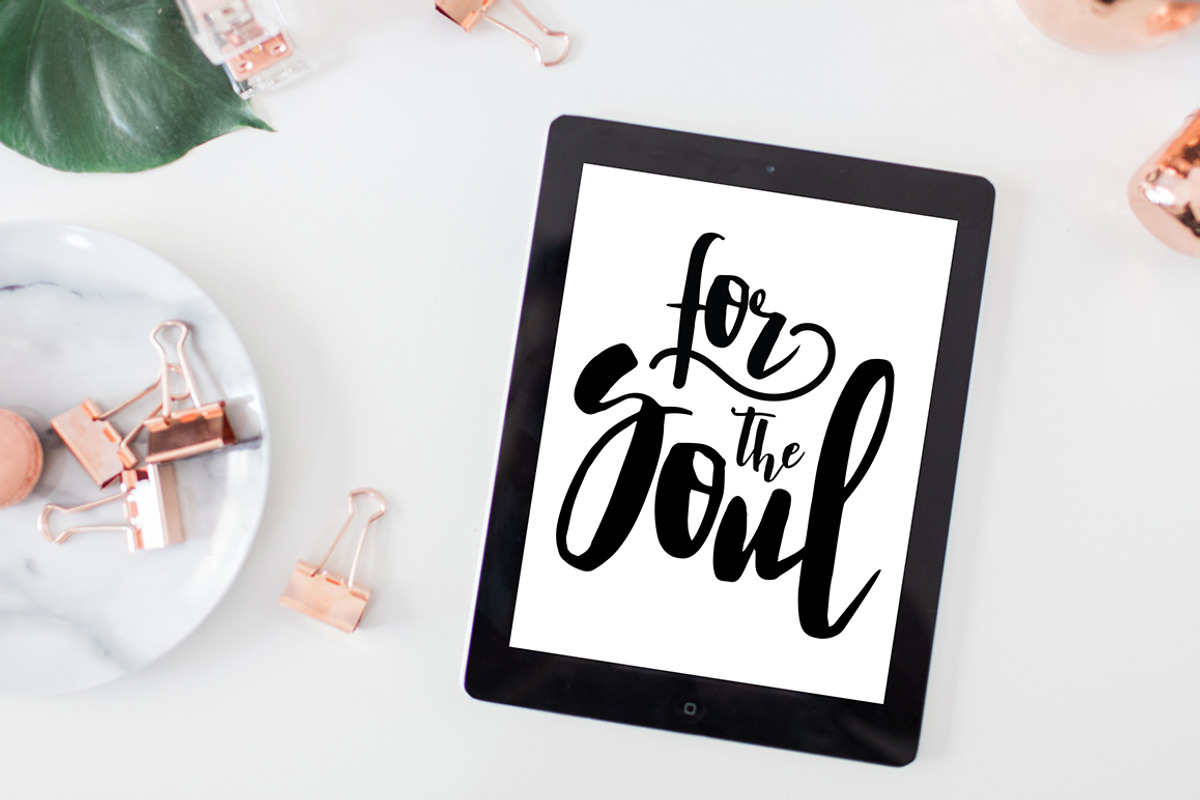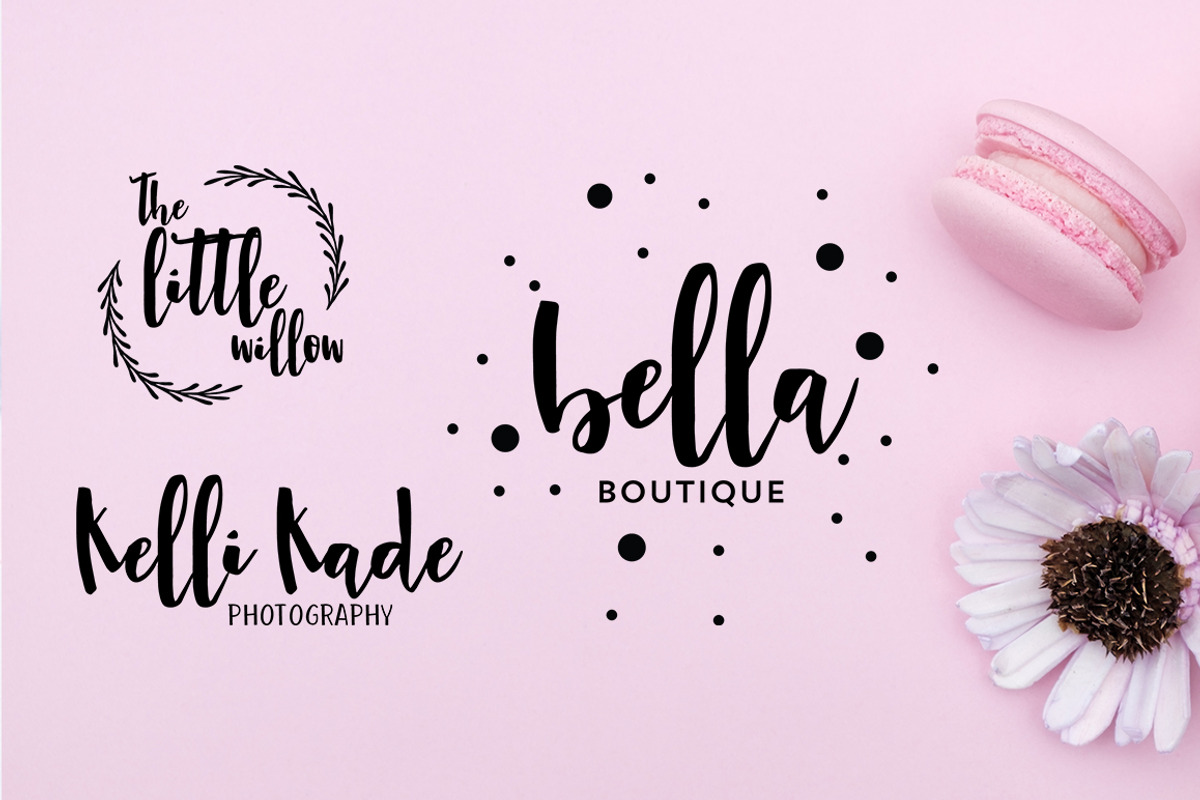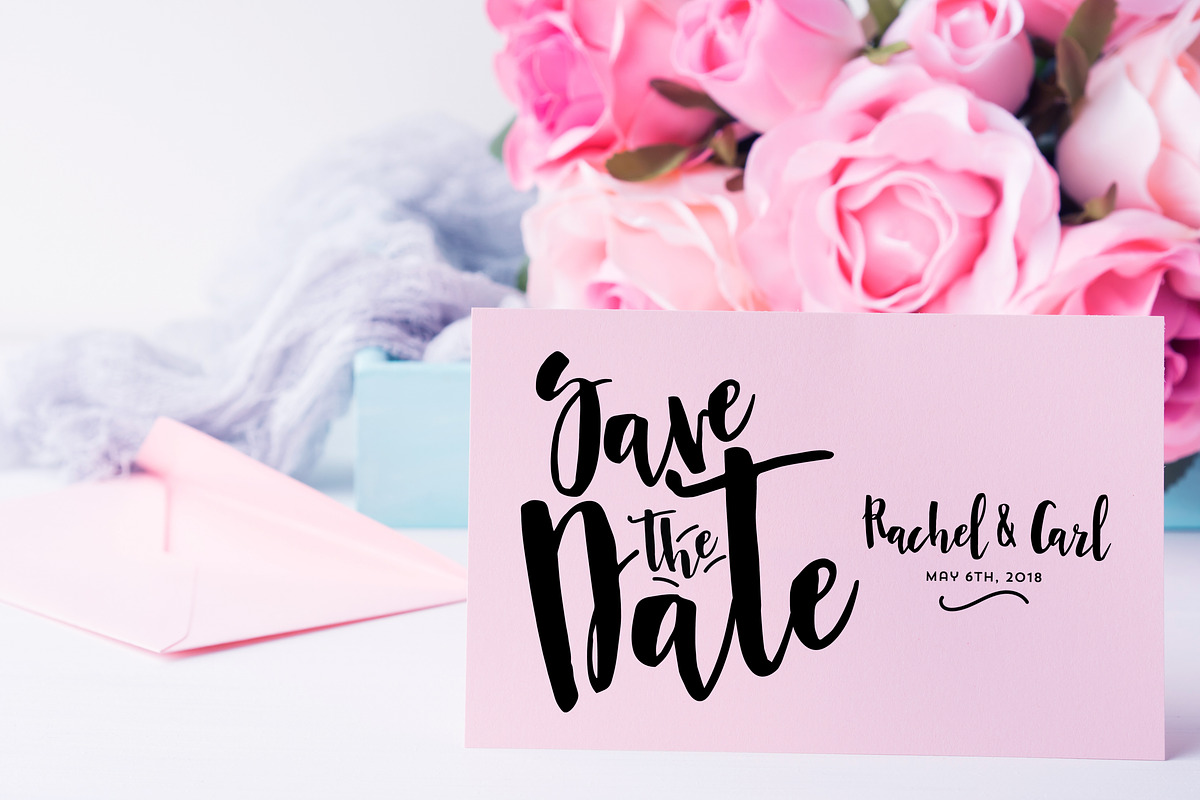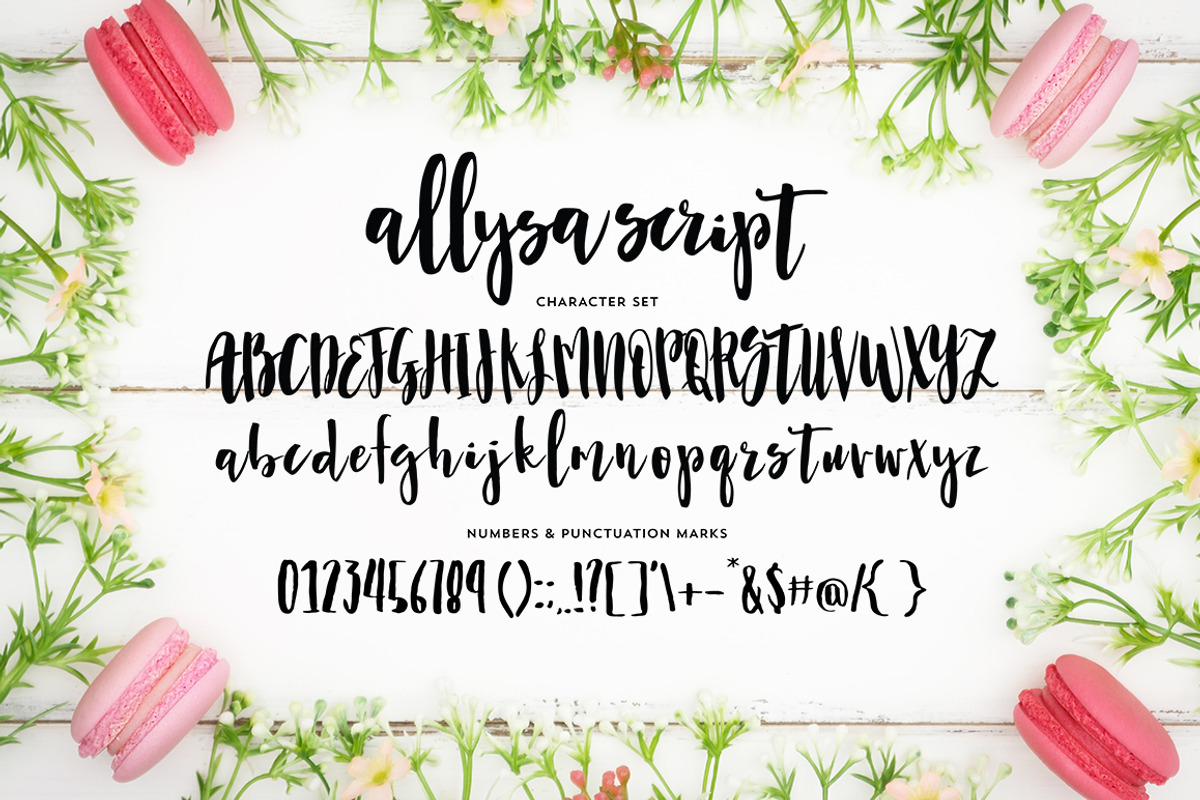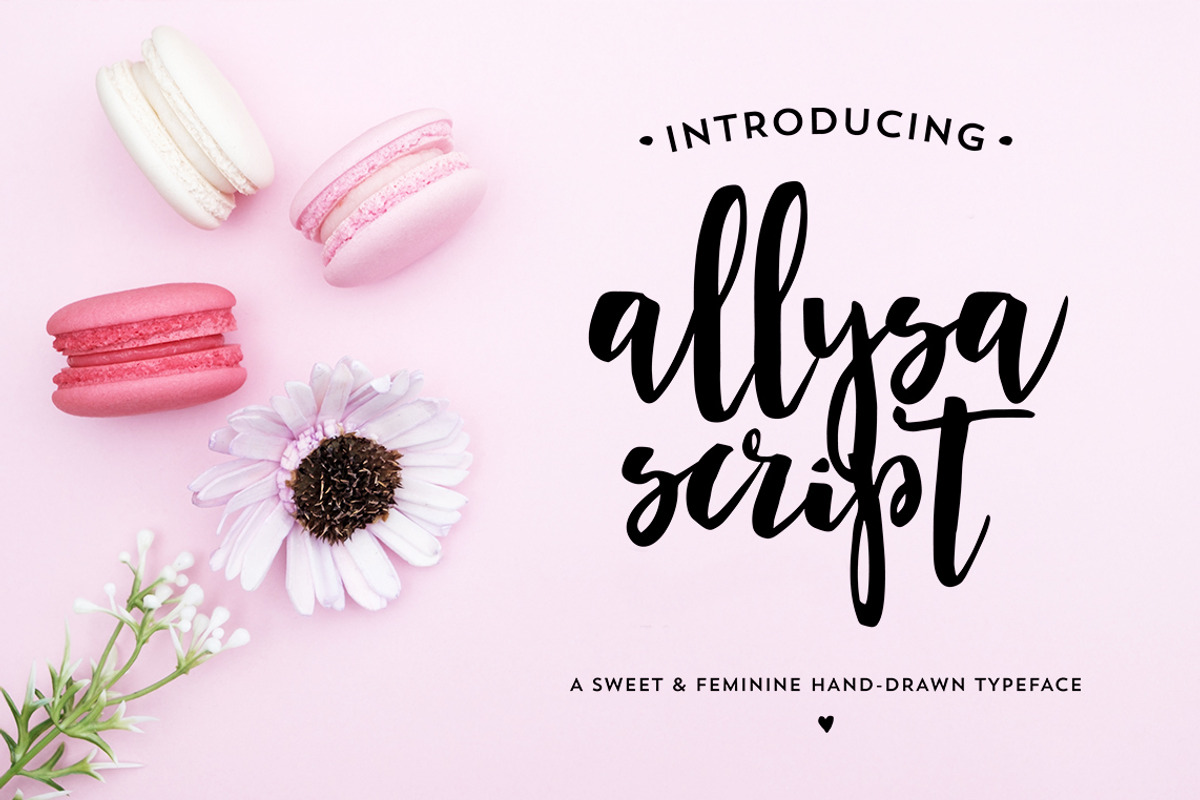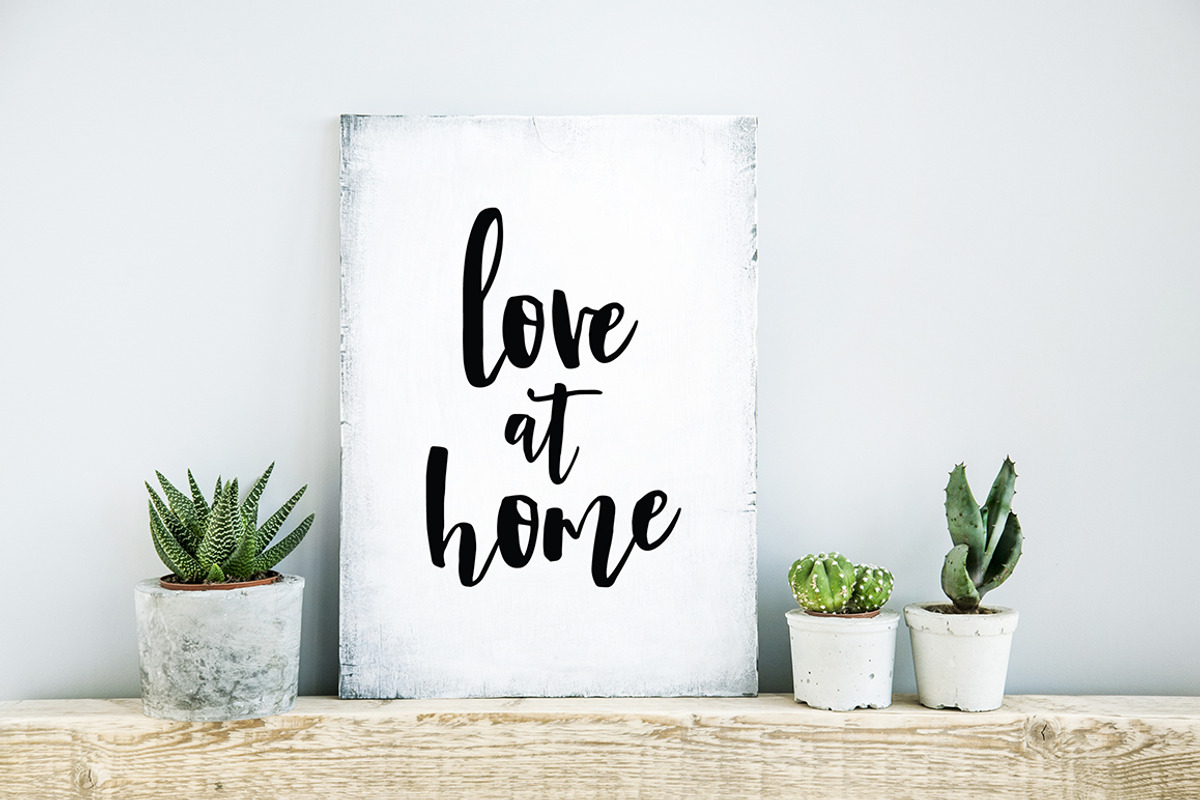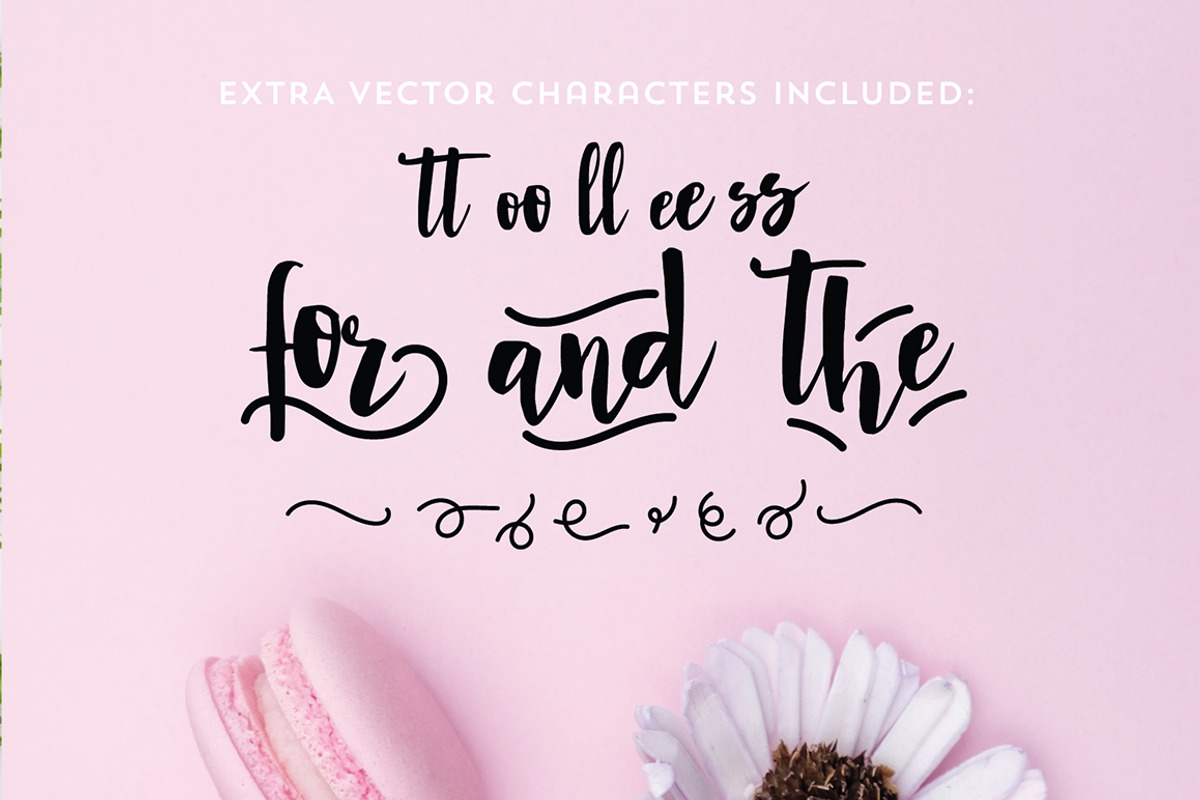
ALLYSA SCRIPT font
Introducing our newest installable font, ALLYSA SCRIPT! This has been our most popular and requested .svg font over the past year. Allysa Script is a beautiful hand-drawn brush script typeface.
This font works perfectly on wedding invitations, your logo, or any home decor!
Please note that while the letters are mostly smooth, there is slight distressing to show that natural hand-drawn character.